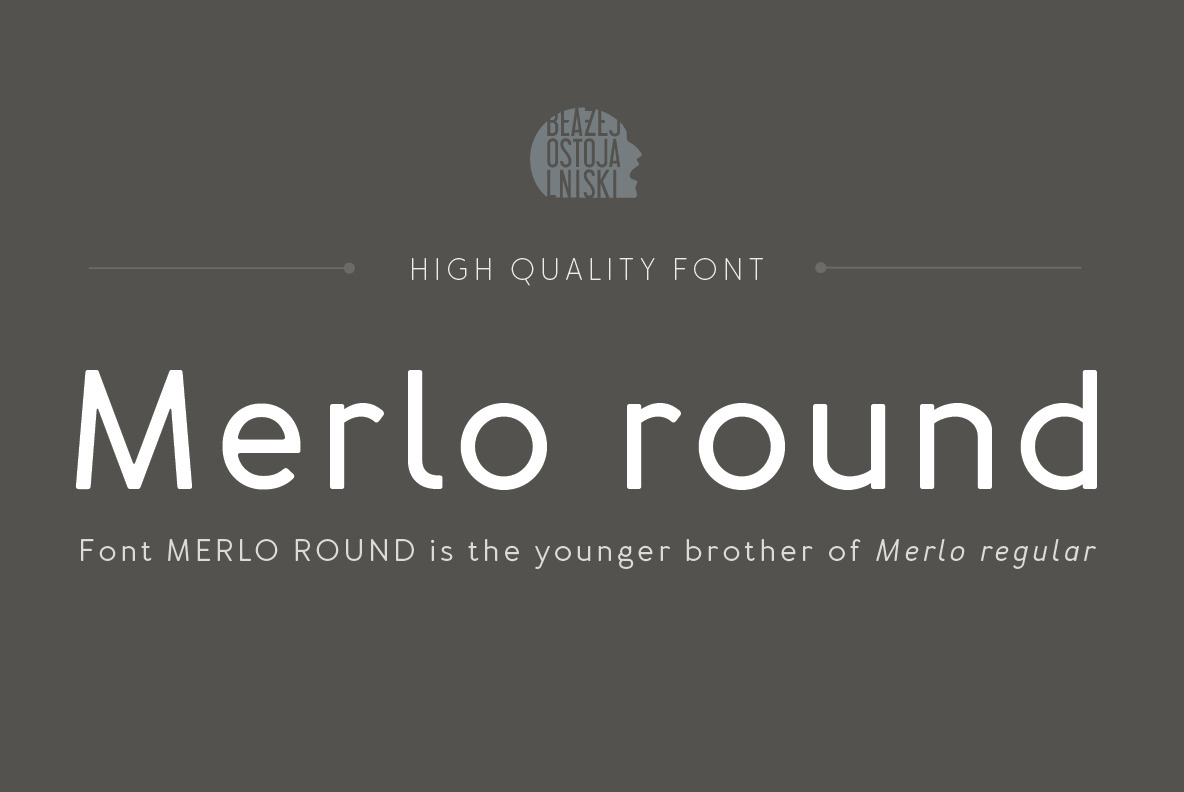
Merlo Round Family Font
Font Merlo Round is the younger brother of Merlo. Font Merlo Round is characterized by twelve different varieties – lower and uppercase characters. It is inspired by a You And Me Monthly published by National Magazines Publisher RSW „Prasa” that appeared from Mai 1960 till December 1973 in Poland.